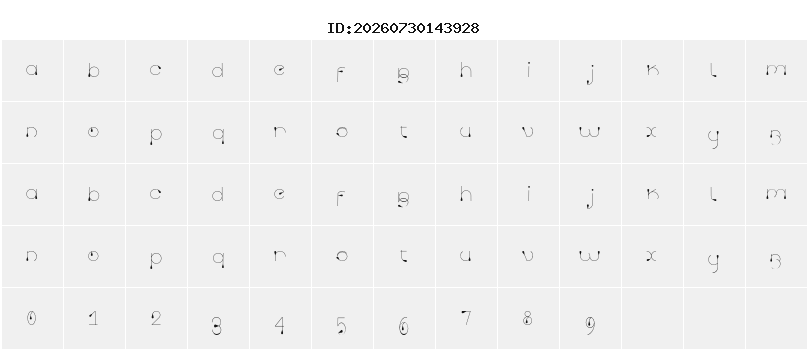
tropf Preview
About tropf.otf
tropf.otf is a modern, elegant sans-serif font designed for ultimate readability and visual harmony. Perfect for branding, headlines, web design, and print materials.